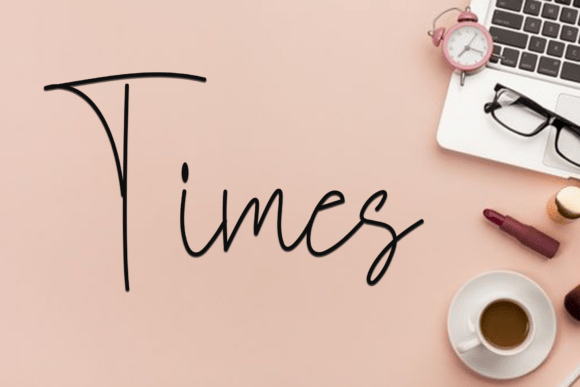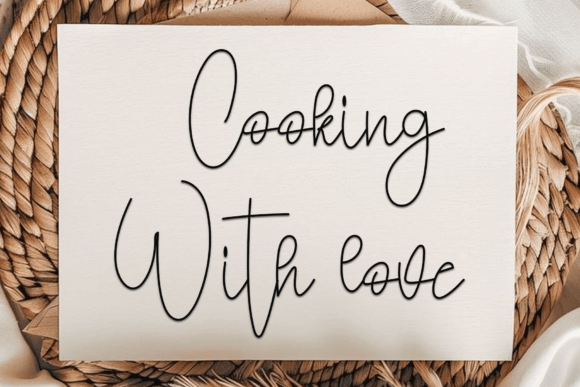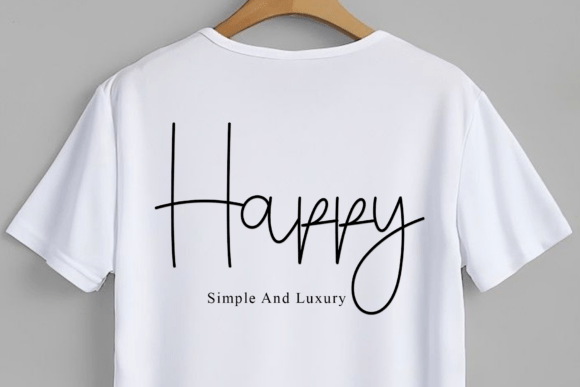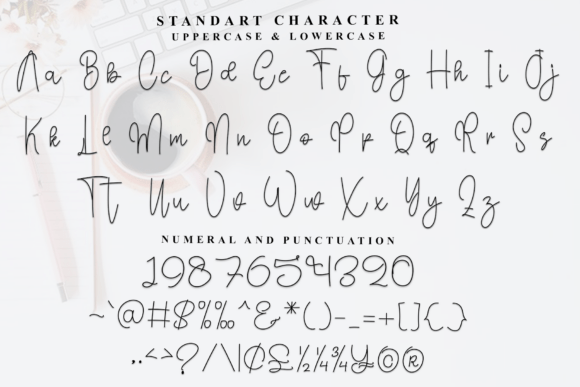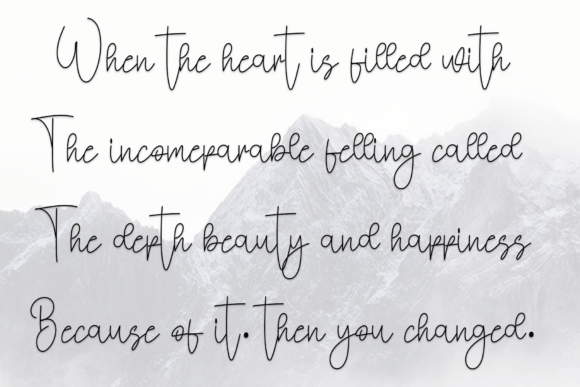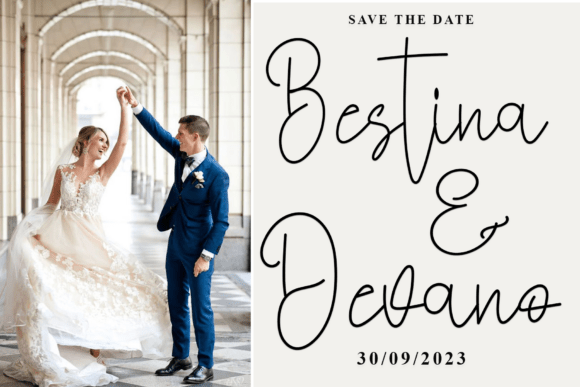
Coffee Elegant Font: Add a Touch of Holiday Magic to Your Designs
The holiday season is upon us, and what better way to get into the spirit than with a festive and merry typeface? Look no further than the Coffee Elegant Font, a decorative font that captures the essence of the holiday season with its whimsical flair and enchanting charm. In this article, we’ll dive into the world of Coffee Elegant, exploring its features, uses, and benefits for designers and crafters.
Coffee Elegant Font is a beautifully crafted typeface that embodies the spirit of the holiday season. Its decorative elements and whimsical flair add a touch of magic to any design, making it perfect for greeting cards, gift tags, and holiday-themed projects. With Coffee Elegant, you can create designs that are not only visually stunning but also evoke a sense of nostalgia and cheerfulness.
Perfect for Holiday Designs
Whether you’re a designer, crafter, or DIY enthusiast, Coffee Elegant Font is the perfect addition to your typography collection. Its festive and merry vibe makes it ideal for a wide range of holiday designs, including:
- Greeting cards: Create personalized and unique greeting cards that will make your loved ones feel special.
- Gift tags: Add a touch of elegance and whimsy to your gift tags, making them perfect for presents, stockings, and holiday treats.
- Holiday-themed projects: From invitations to party decorations, Coffee Elegant Font is the perfect choice for any holiday project.
One of the best features of Coffee Elegant Font is that it’s PUA (Private Use Area) encoded. This means that you can access all the amazing glyphs and ligatures with ease, giving you endless possibilities for creative expression. With PUA encoding, you can:
- Access a wide range of glyphs and ligatures, including festive symbols, ornaments, and swashes.
- Mix and match different elements to create unique and personalized designs.
- Save time and effort by having all the design elements you need at your fingertips.
Bringing a Cheerful and Nostalgic Ambiance to Your Words
Coffee Elegant Font is more than just a typeface – it’s an experience. Its whimsical flair and decorative elements evoke a sense of nostalgia and cheerfulness, transporting your designs to a magical winter wonderland. With Coffee Elegant, you can:
- Create designs that are both visually stunning and emotionally resonant.
- Evoke a sense of wonder and enchantment in your audience.
- Make your designs stand out with a unique and festive typography style.
Tips and Tricks for Using Coffee Elegant Font
To get the most out of Coffee Elegant Font, here are some tips and tricks to keep in mind:
- Experiment with different font sizes and styles to create visual interest and hierarchy.
- Combine Coffee Elegant with other fonts to create a unique and personalized typography style.
- Use the glyphs and ligatures to add decorative elements and flourishes to your designs.
- Don’t be afraid to get creative and try new things – Coffee Elegant Font is designed to inspire and delight!
In conclusion, Coffee Elegant Font is a must-have for designers and crafters looking to add a touch of holiday magic to their designs. With its festive and merry vibe, decorative elements, and whimsical flair, this font is perfect for greeting cards, gift tags, and holiday-themed projects. Its PUA encoding makes it easy to access a wide range of glyphs and ligatures, giving you endless possibilities for creative expression. So why wait? Get your hands on Coffee Elegant Font today and let your typography shine with the magic of the holiday season!